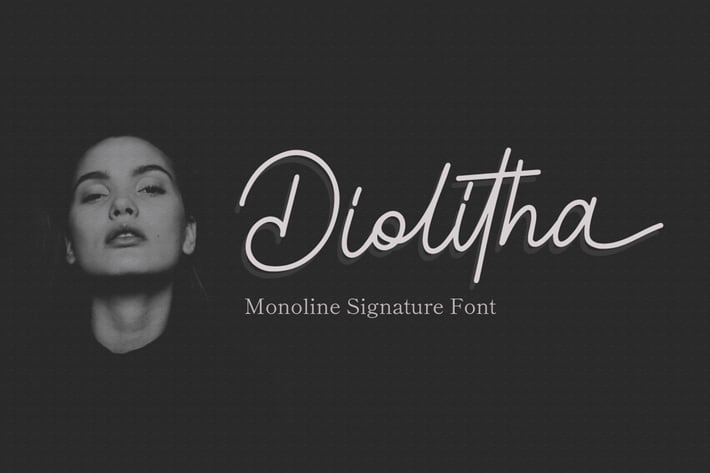
Diolitha - Monoline Signature Font
Diolitha is monoline signature font with ending swash. Fall in love with its incredibly versatile style and use it to create spectacular designs!
Diolitha is perfect for branding, logo, invitation, stationery, social media post, product packaging, merchandise,
blog design, game titles, cute style design, Book/Cover Title and more.
- Ending Swash